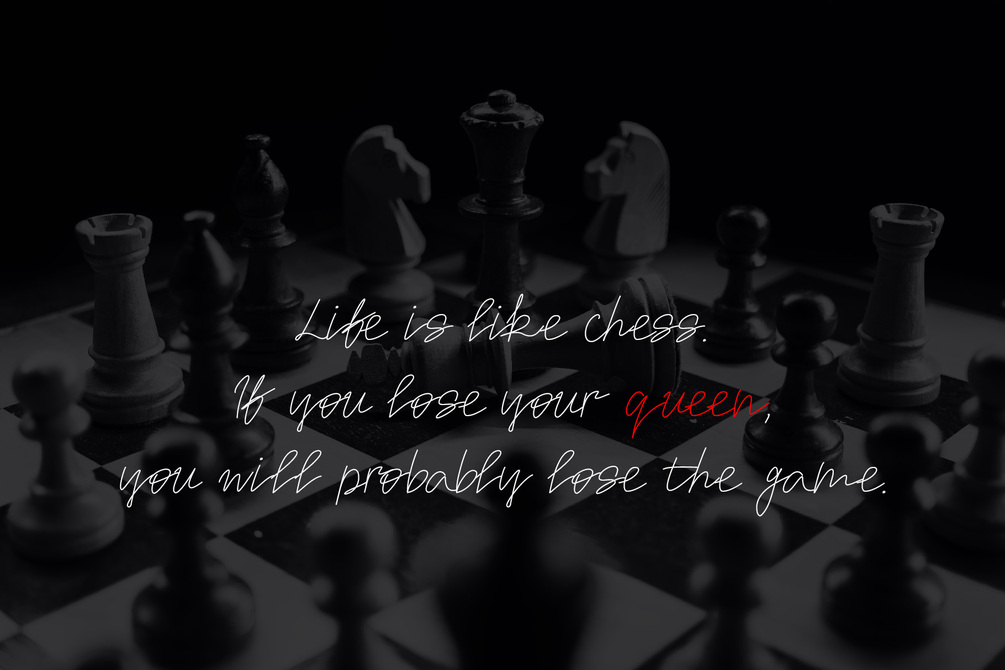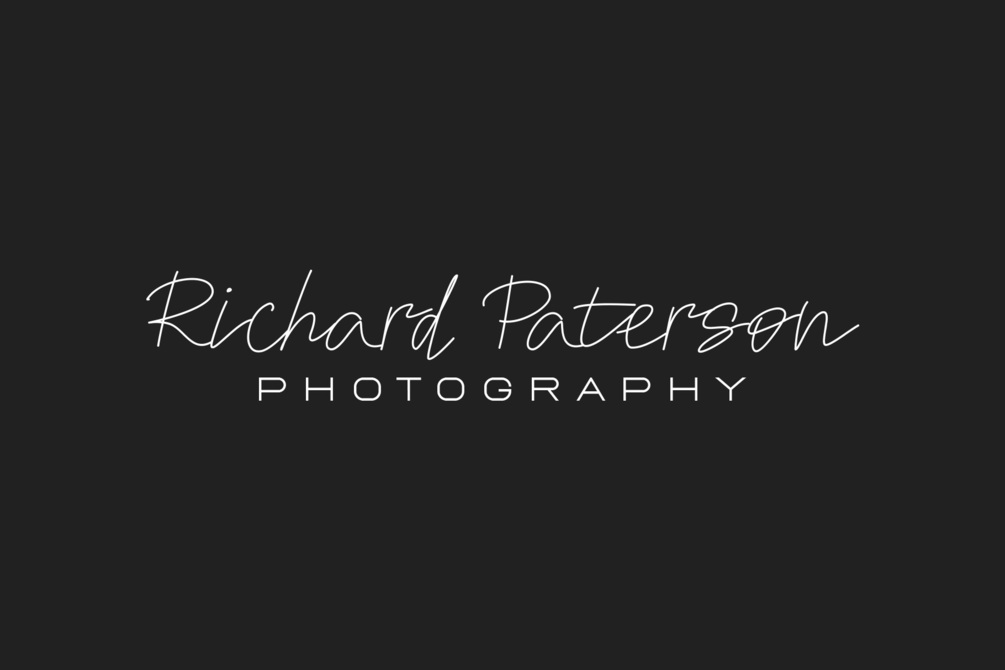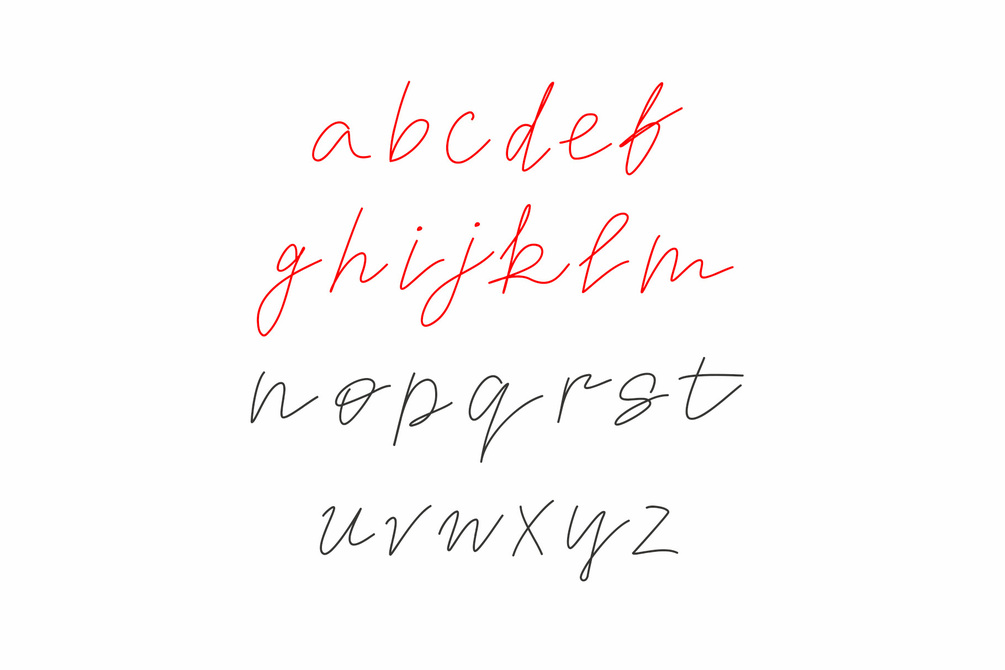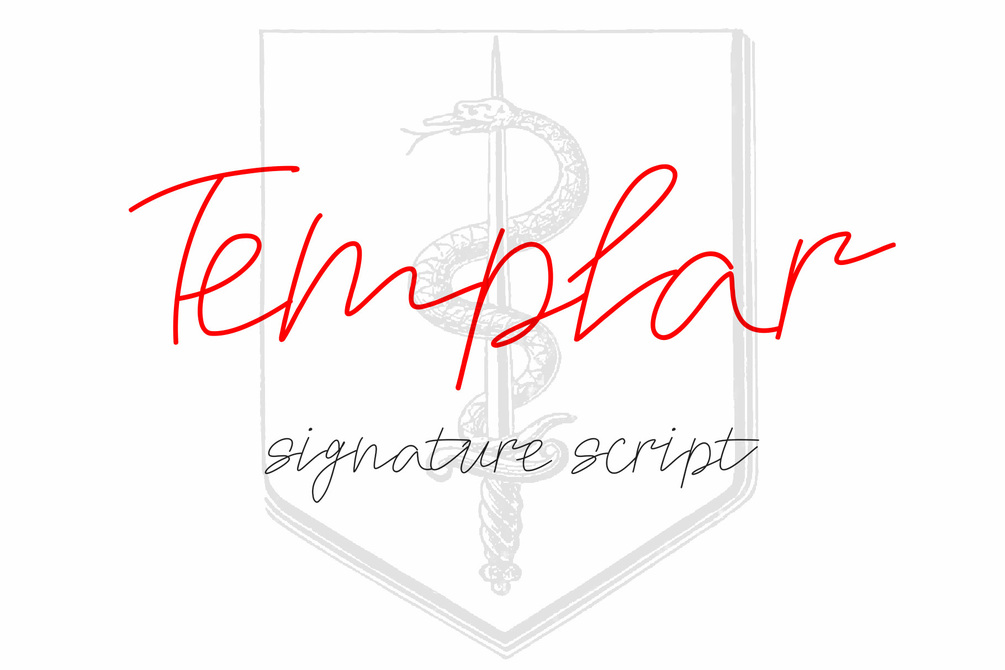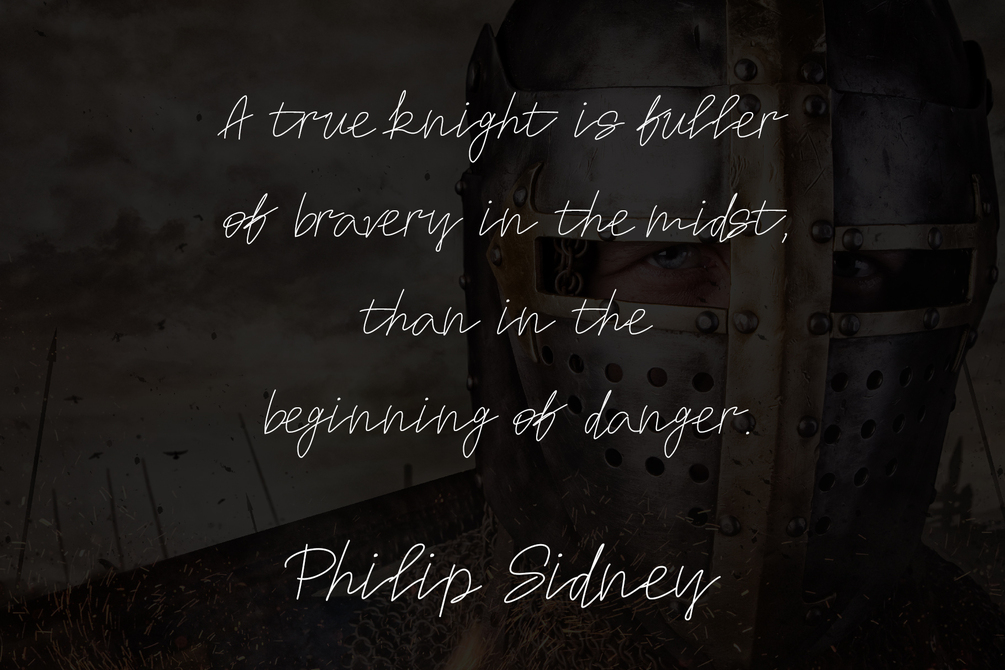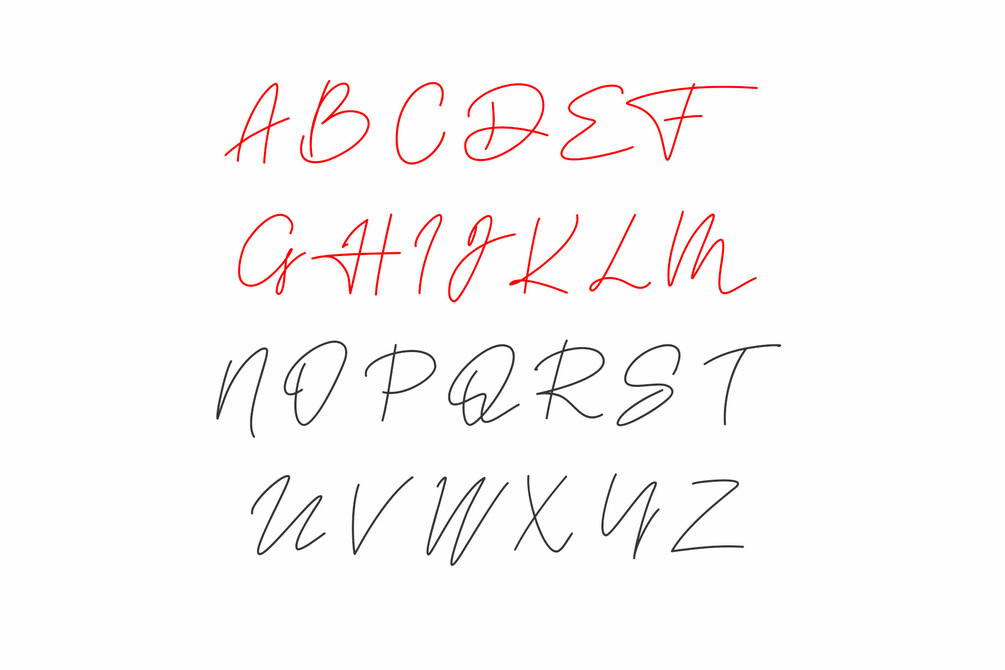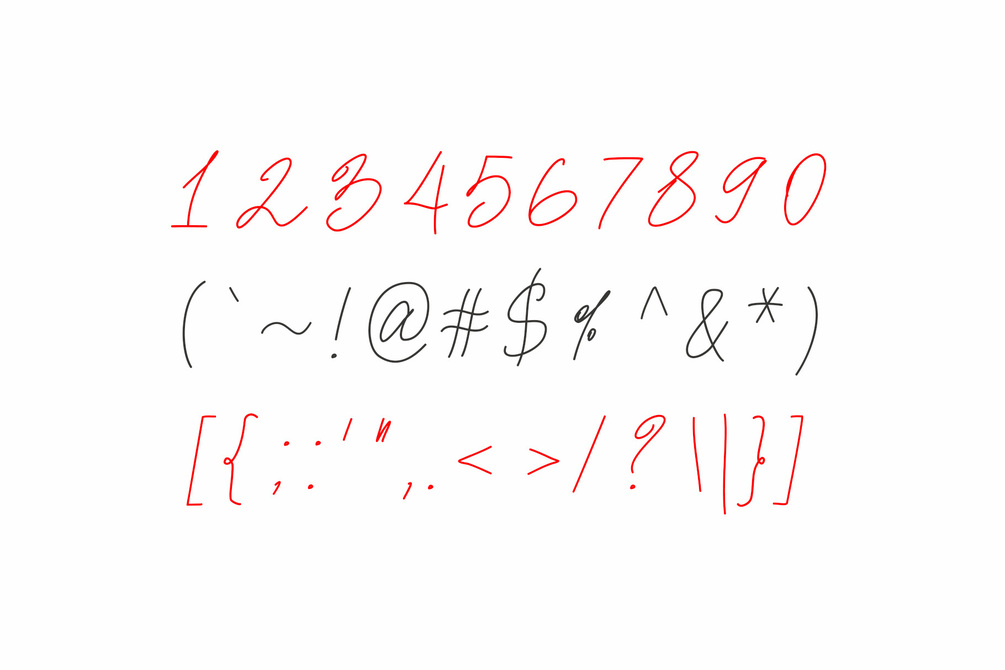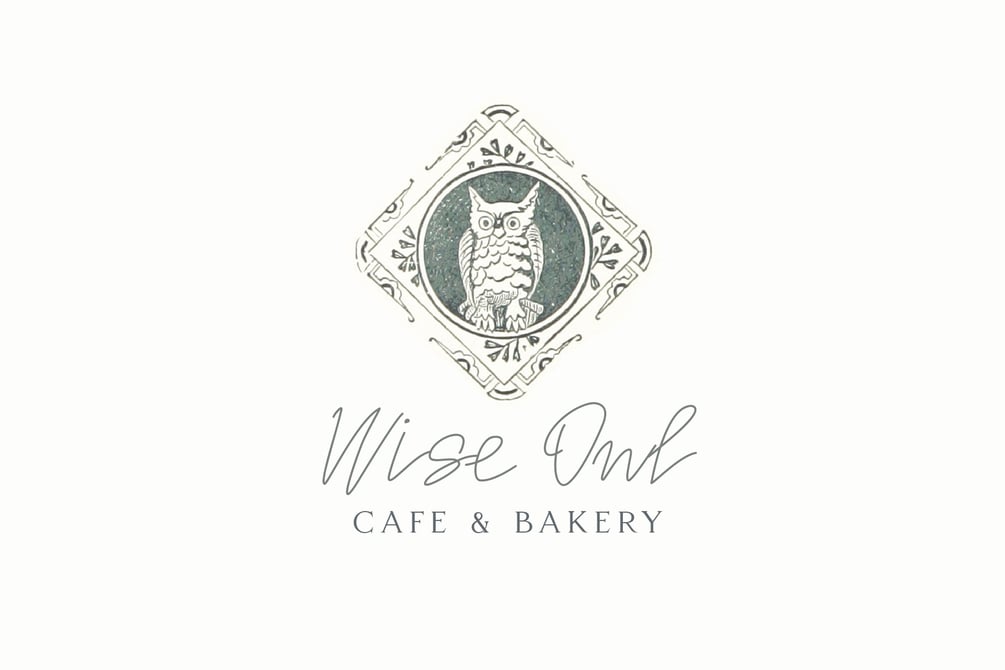
Templar - Signature Script
If you've been struggling to find a natural looking signature script, then look no further.
Templar is a stunning handmade signature script typeface ready to be used for your creative endeavors. This font was made entirely by hand, ensuring a unique and natural feeling.
The typeface is very versatile which means you can use it for numerous projects like branding design, blog headers, signatures, quotes, social media posts, advertisements, product packaging, fashion apparel, business card, labels, stationery and more...
Templar contains a complete set of uppercase, lowercase, numerals, and punctuations.